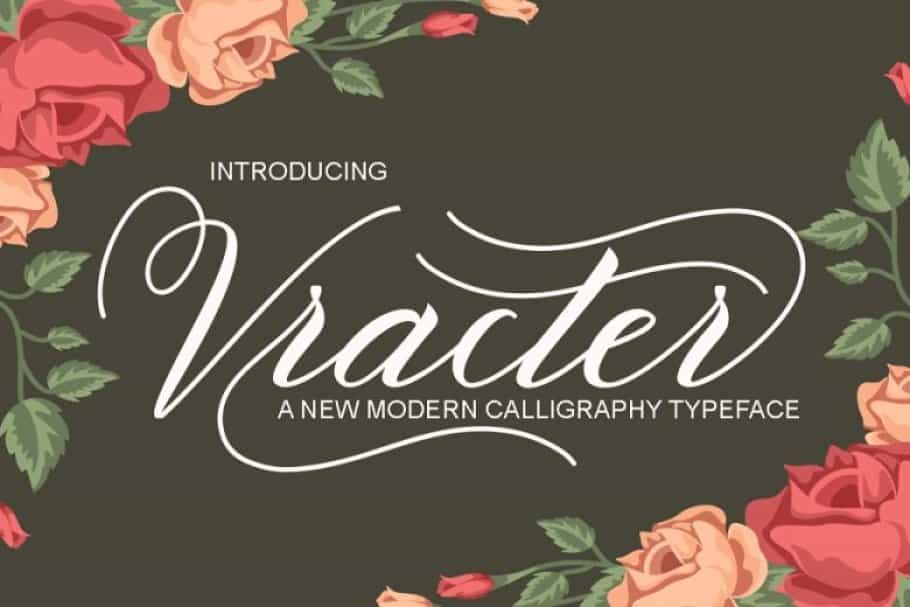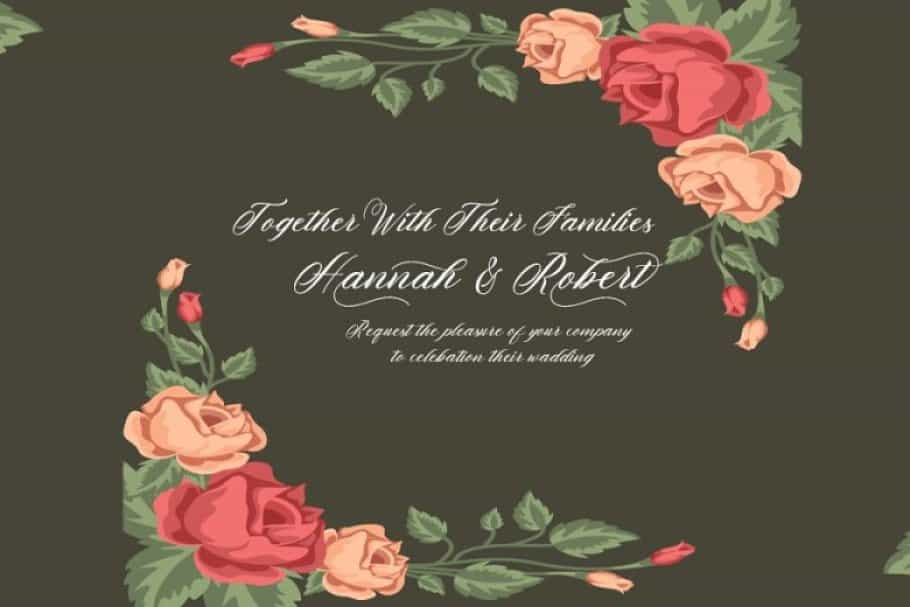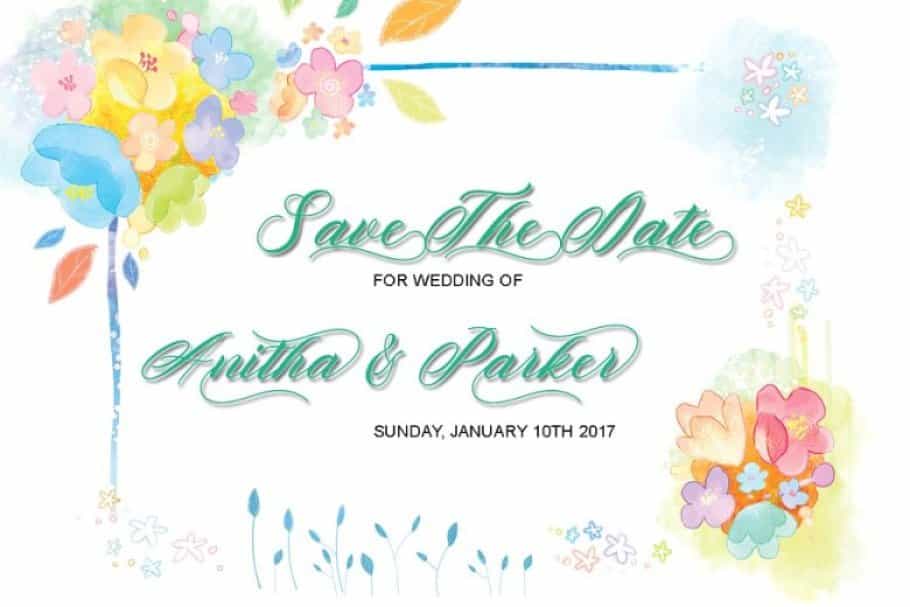
Discover Vracter Script Font, part of the Calligraphy collection—a versatile and unique font perfect for adding a personal touch to your projects. Download it for free and enjoy crafting designs with style, from invitations to social media posts. This font is available exclusively for personal use, giving you the freedom to create without limits. Unlock your creativity with Vracter Script Font today!
Introducing Vracter Font. Vracter Font Duo Script is a fashionable calligraphy font which has the variable baseline, smooth line and classical elegant touch. Can be applied to a lot of things. for instance titles, signatures, logos, wedding invitations, t-shirts, letterheads, signages, lables, news posters badges etc.